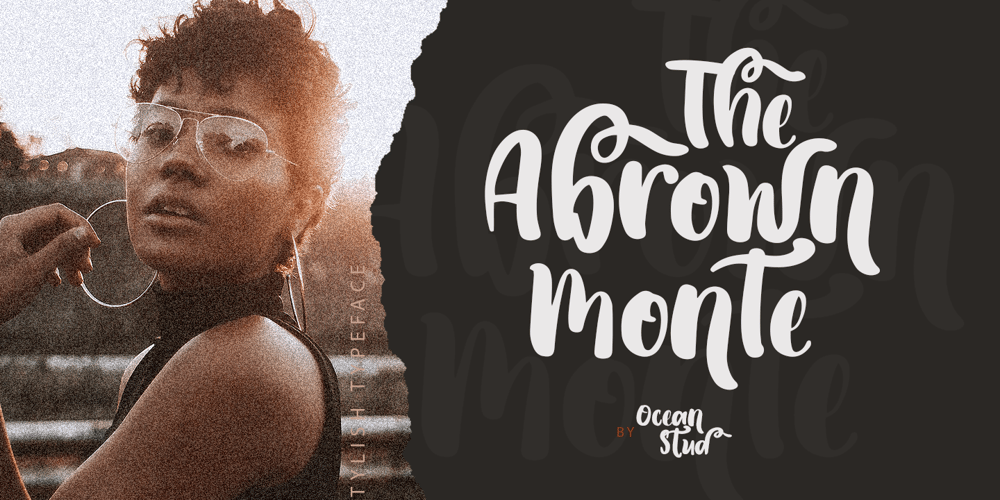
The Abrown Monte Font Family was designed by Laire Banyu and published by The Ocean Studio. The Abrown Monte contains 1 styles and family package options. The Abrown Monte is a elegant handwritten font. It brings a beautiful and attractive typeface. Made for any professional project branding. It is the best for logos, branding, wedding and quotes.Features: Standard Ligatures Multilingual Support PUA Encoded Numerals and Punctuation Thank you for downloading premium fonts from Ocean Stud